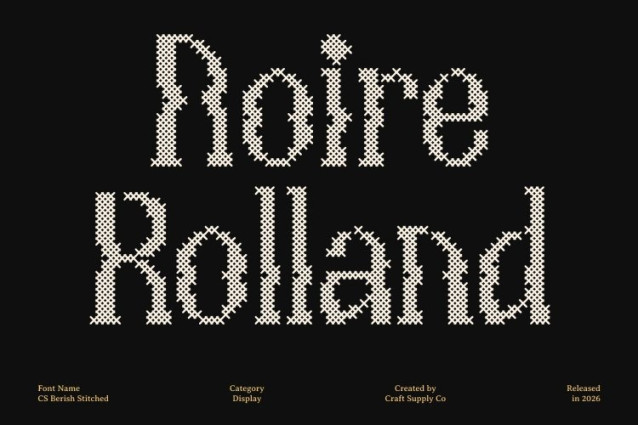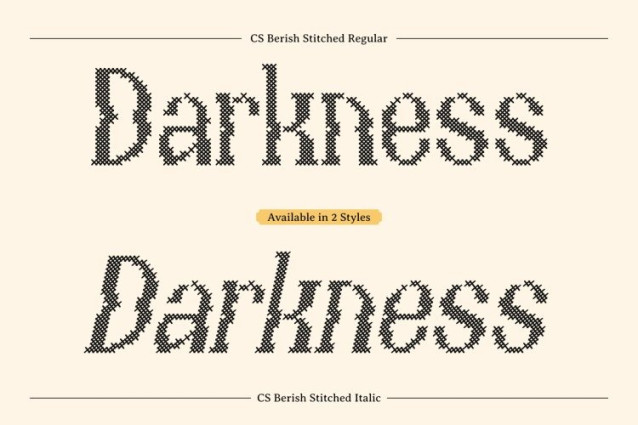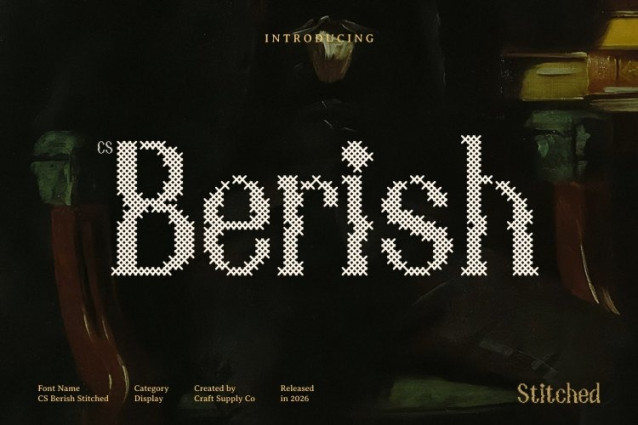
CS Berish Stitched Font
CS Berish Stitched Font – This is a display serif font that blends classic serif elegance with bold, contemporary psychedelic shapes. Its flowing letterforms feature curved. Enhanced with a stitched style inspired by thread sewn or embroidered on fabric, this version introduces a handcrafted dimension that adds warmth and tactile character to its expressive design.
Swirling Forms with Embossed Stitch Detail
The psychedelic shapes of this font are complemented by a distinctive cross-shaped stitch pattern layered across each letterform. This embroidered detail creates an embossed, fabric-like texture that enriches the typography with depth and visual interest. The stitched effect adds a classic, nostalgic, relaxed, and warm impression while preserving the vibrant and experimental personality of the font.
Energetic Visual Identity with Classic Roots
By combining timeless serif structure with free-flowing psychedelic curves, this font delivers a captivating balance between tradition and modern artistic expression. The stitched texture enhances the handcrafted feel, making the font both visually bold and uniquely expressive while maintaining clarity and sophistication.
Perfect for Creative and Contemporary Projects
This is ideal for posters, music visuals, event branding, packaging, and editorial headlines that aim to capture attention. Its fusion of psychedelic movement, classic serif influence, and stitched craftsmanship creates a distinctive typographic identity perfect for projects seeking creativity, individuality, and a modern artistic edge.